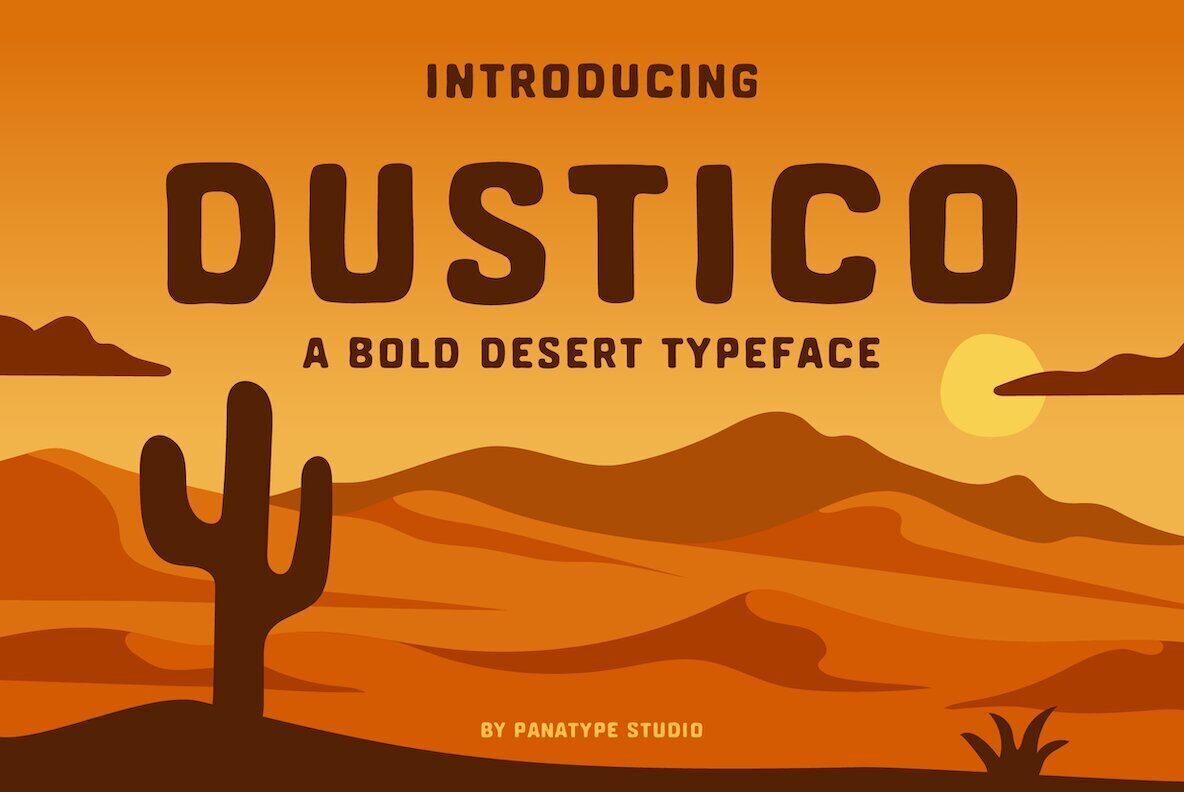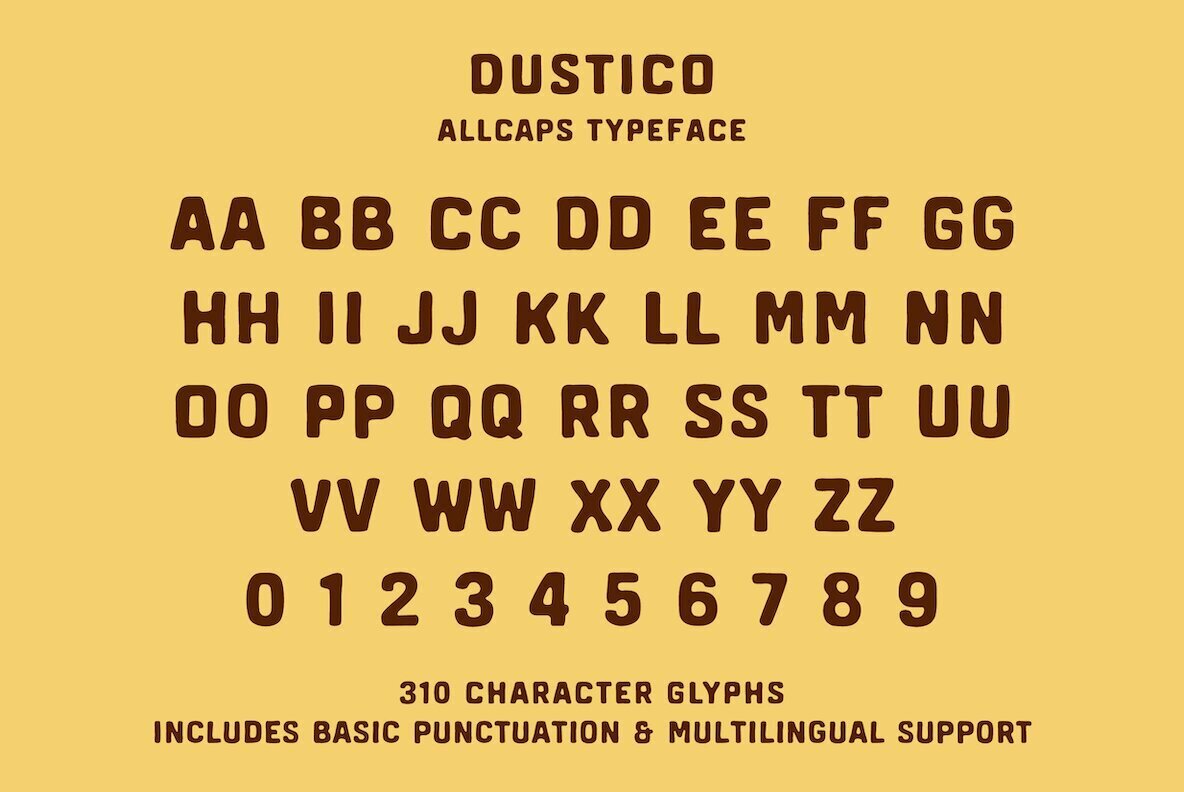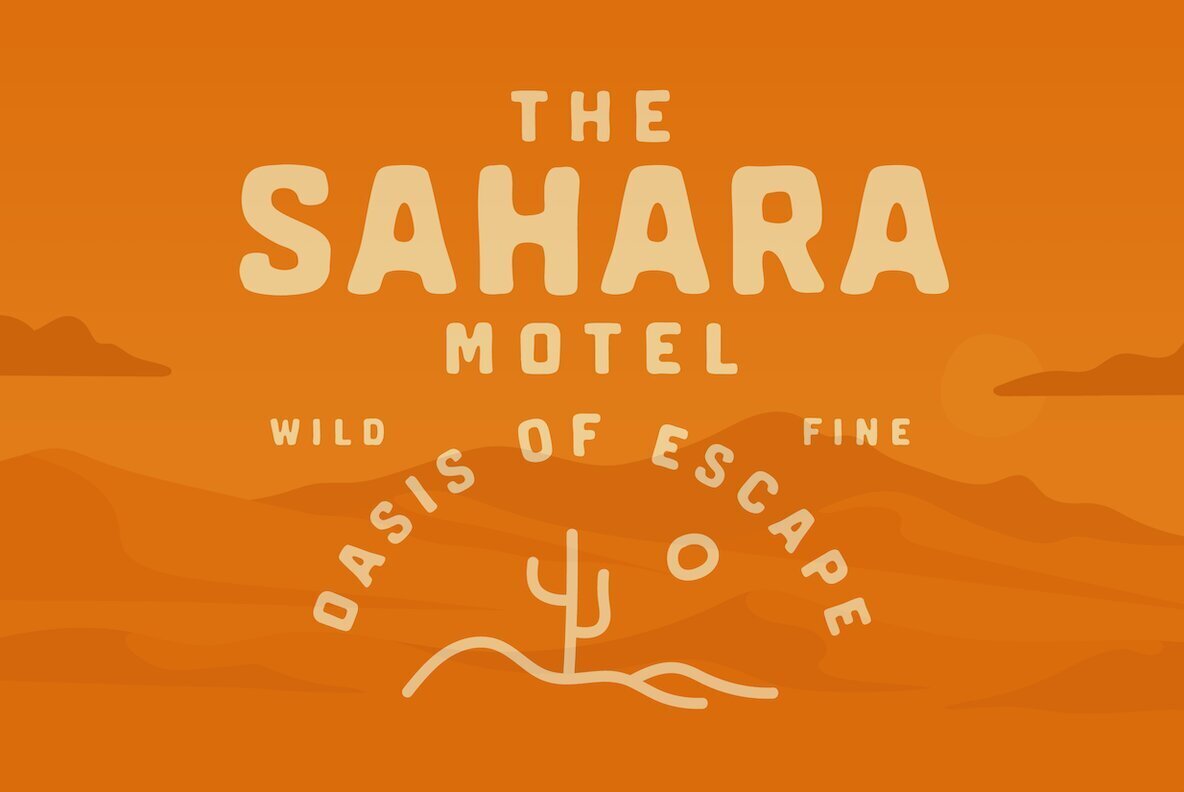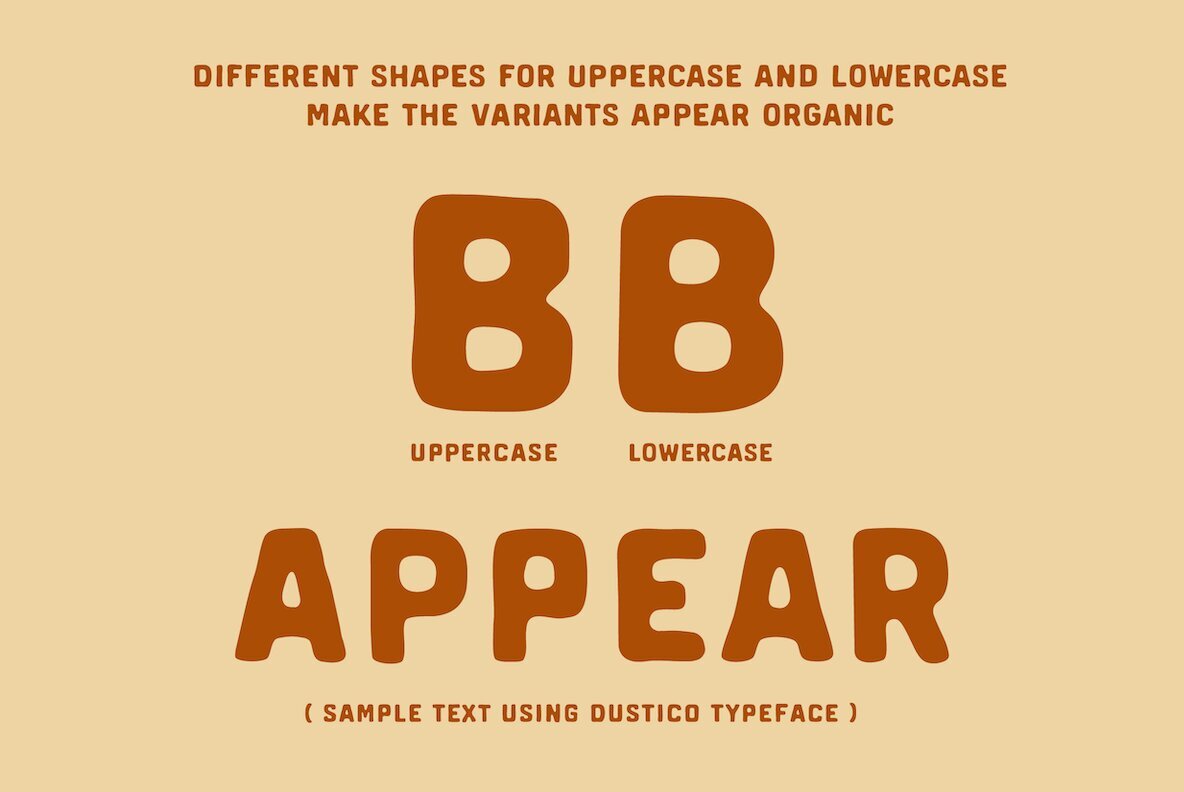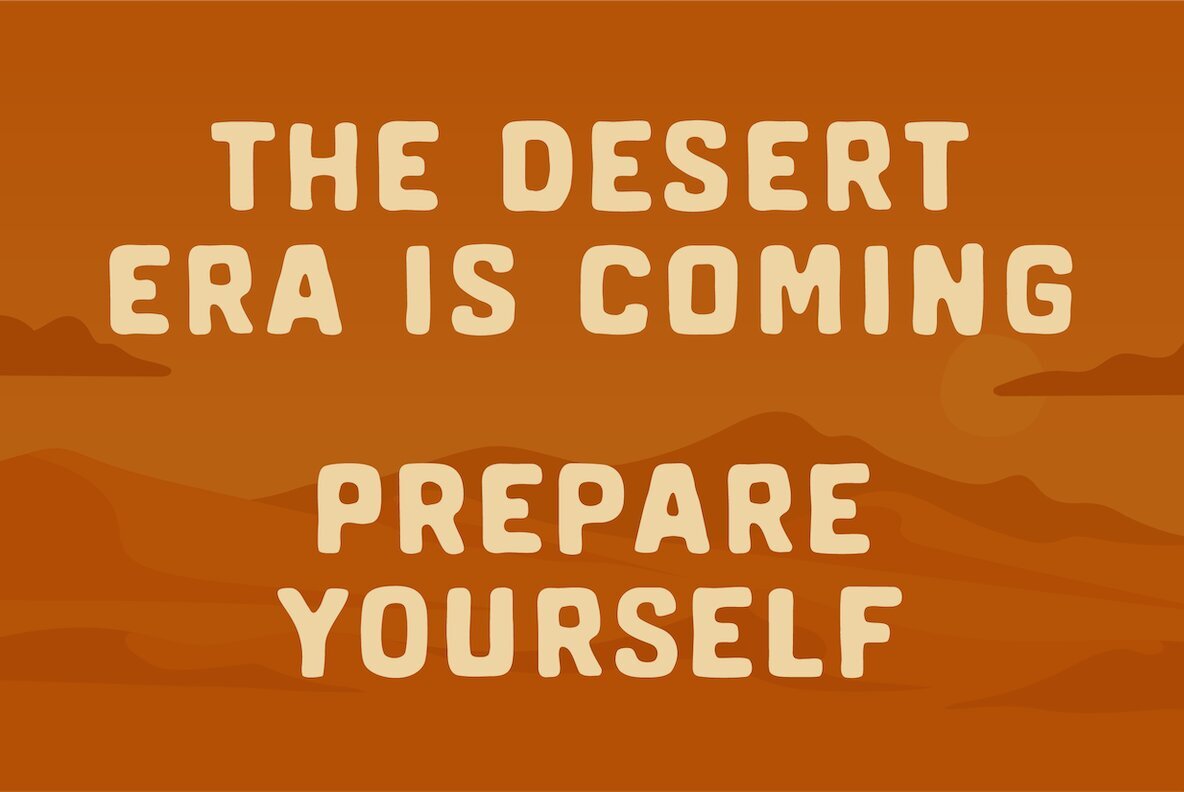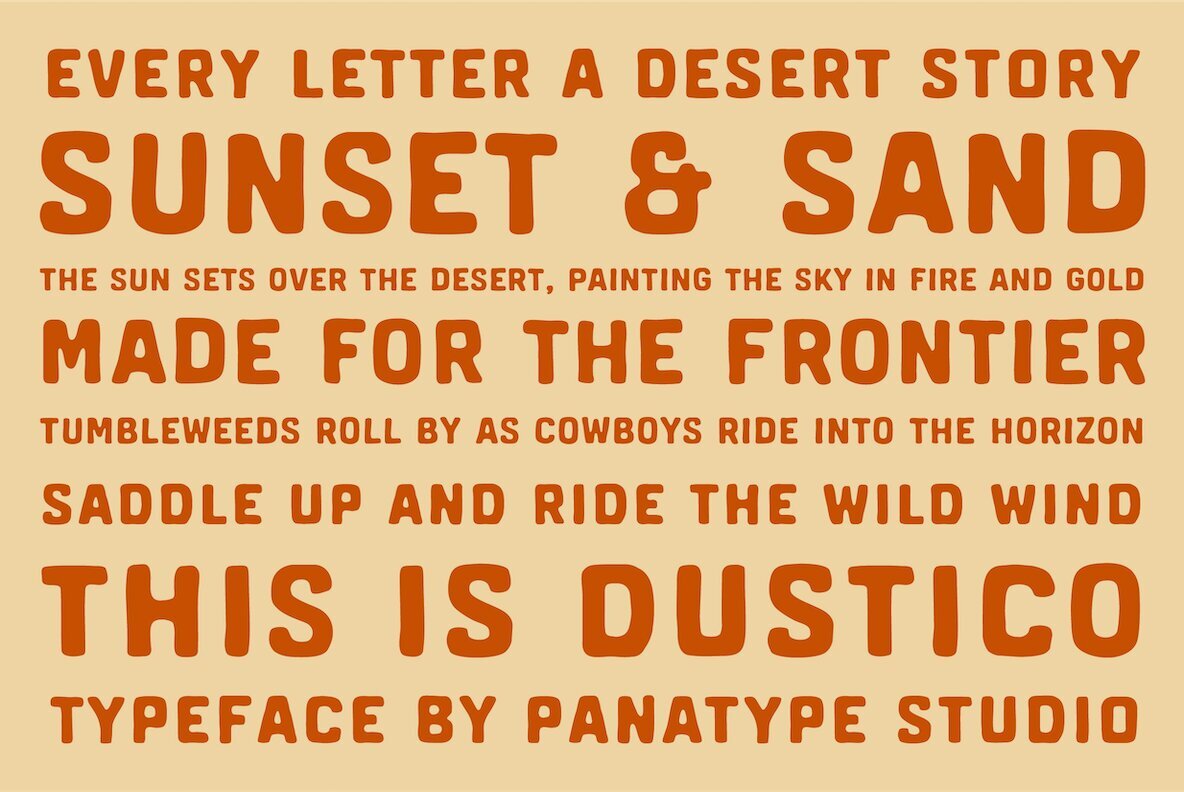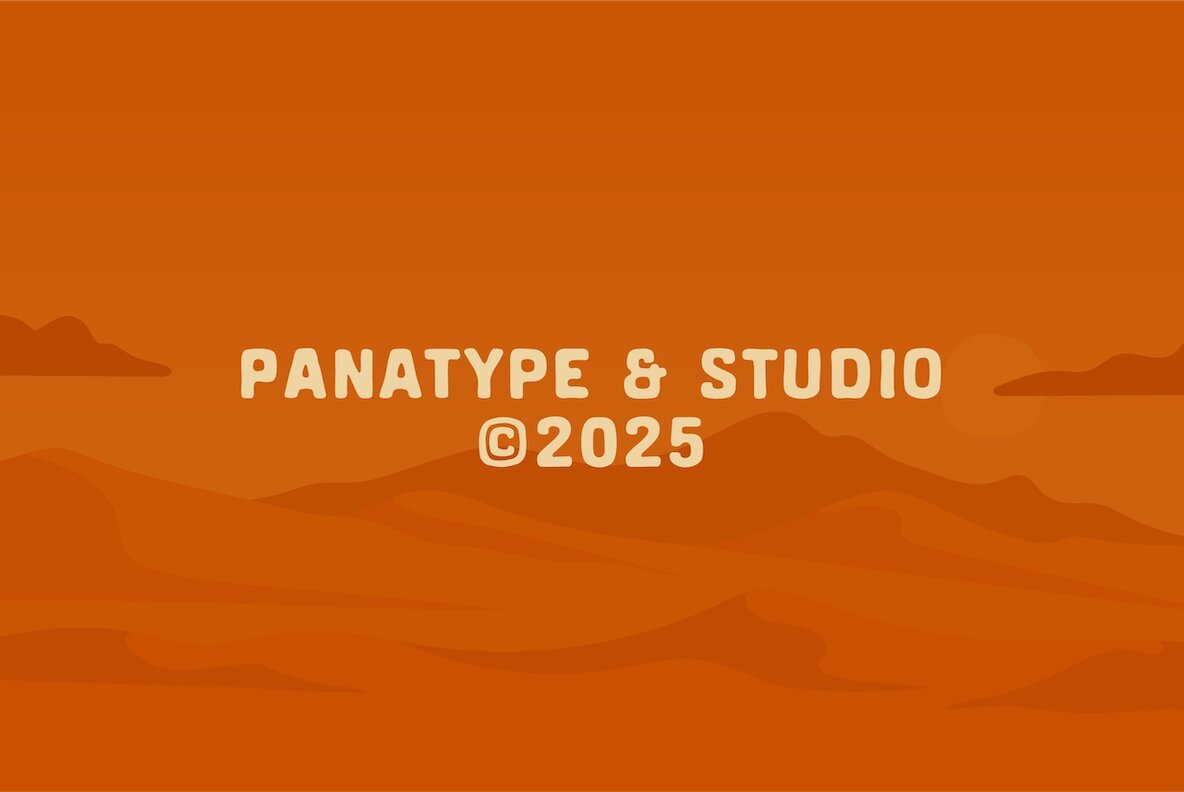
Dustico Font
DUSTICO Regular
Dustico is a typeface brimming with character, drawing inspiration from the windswept landscapes and the vivid hues of desert sunsets. Its chunky, rounded forms impart a rugged yet playful edge, perfect for injecting confidence into any creative endeavor. Whether you're designing branding materials, vintage logos, or western-themed graphics, Dustico delivers a distinctive flair that captivates in both print and digital media. Embrace the spirit of the frontier with Dustico, where the wild west merges with modern design.Dustico: Bold Western Desert Font